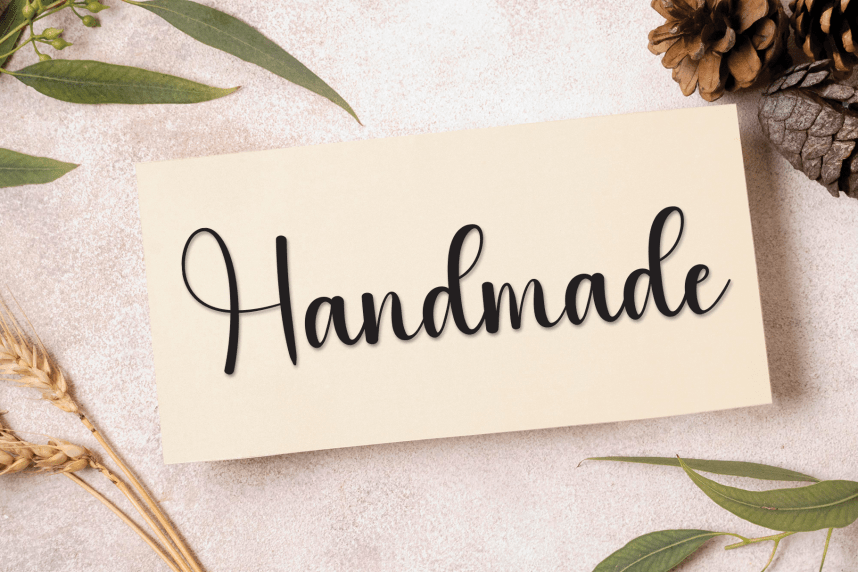
Montana – Casual Handwritten Script Font
Montana – Casual Handwritten Script Font is a sweet and friendly handwritten display font. Cute and fun, this font is ideal for writing wedding invitations, cards, or any other design that might need a playful touch!